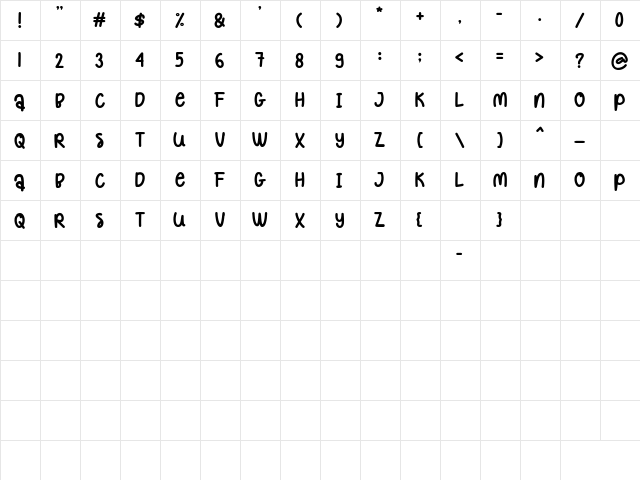
Fun Mountain Font Regular
Design Context for Fun Mountain Font Typeface
Fun Mountain Font trades formality for fun, with bouncy, characterful letterforms that bring warmth and energy to any project.
Font Pairing: Pairs well with a rounded or humanist sans for body copy, maintaining the friendly tone without relying on Fun Mountain Font to carry extended reading.
Pro Tip: Avoid using Fun Mountain Font for long passages of text — it works best for headlines, labels, and short calls to action.